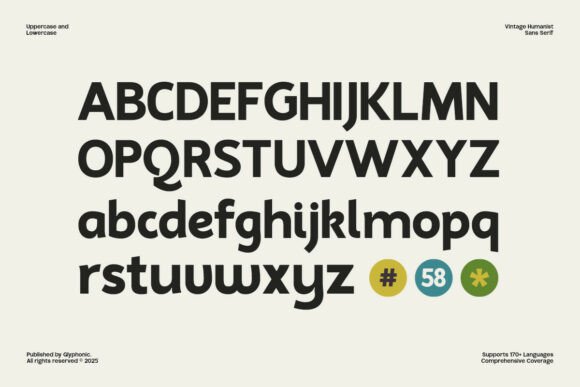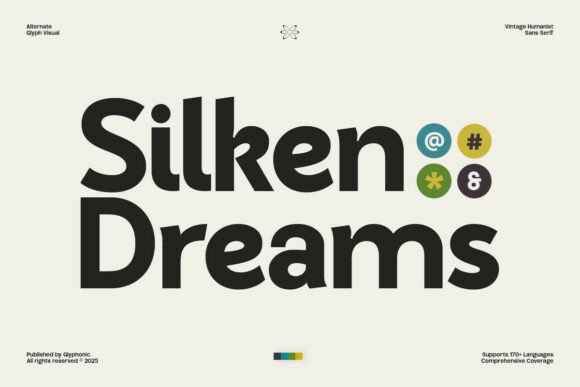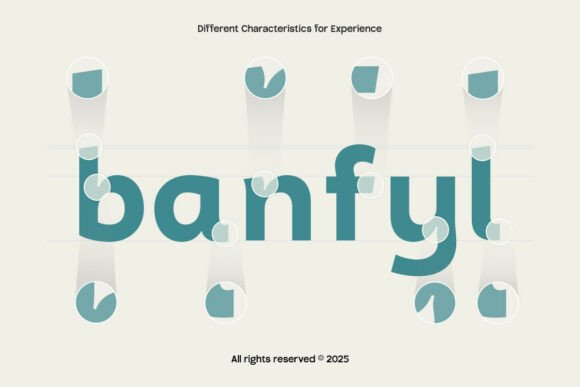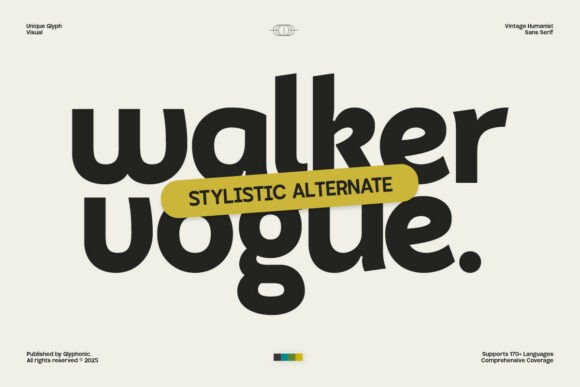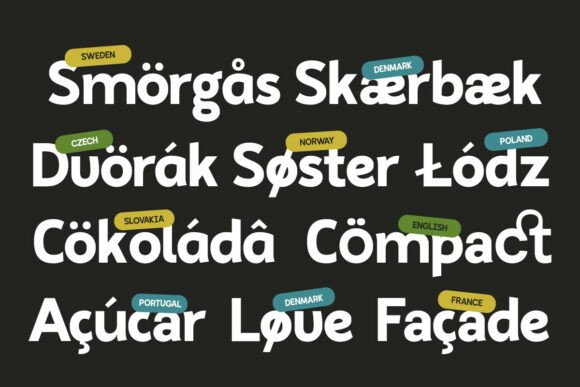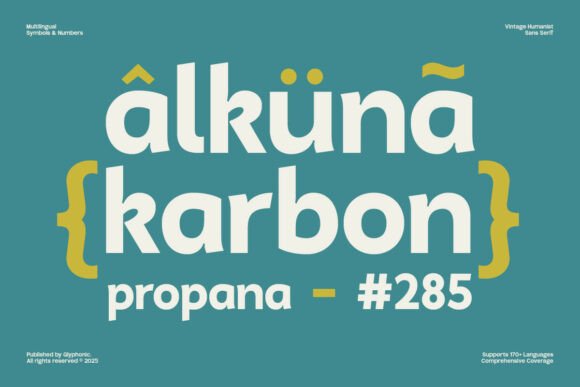
Introduction to Gc Ralinka Font
**GC Ralinka** is a bold humanist sans-serif typeface that blends warmth and strength with clean, modern lines.
Designed for maximum readability and personality, itโs perfectly suited for headlines, branding, logos, packaging, editorial layouts, and impactful display projects Crafted to communicate with clarity and confidence, it leaves a lasting impression in both print and digital media.
Key Features of Gc Ralinka Font